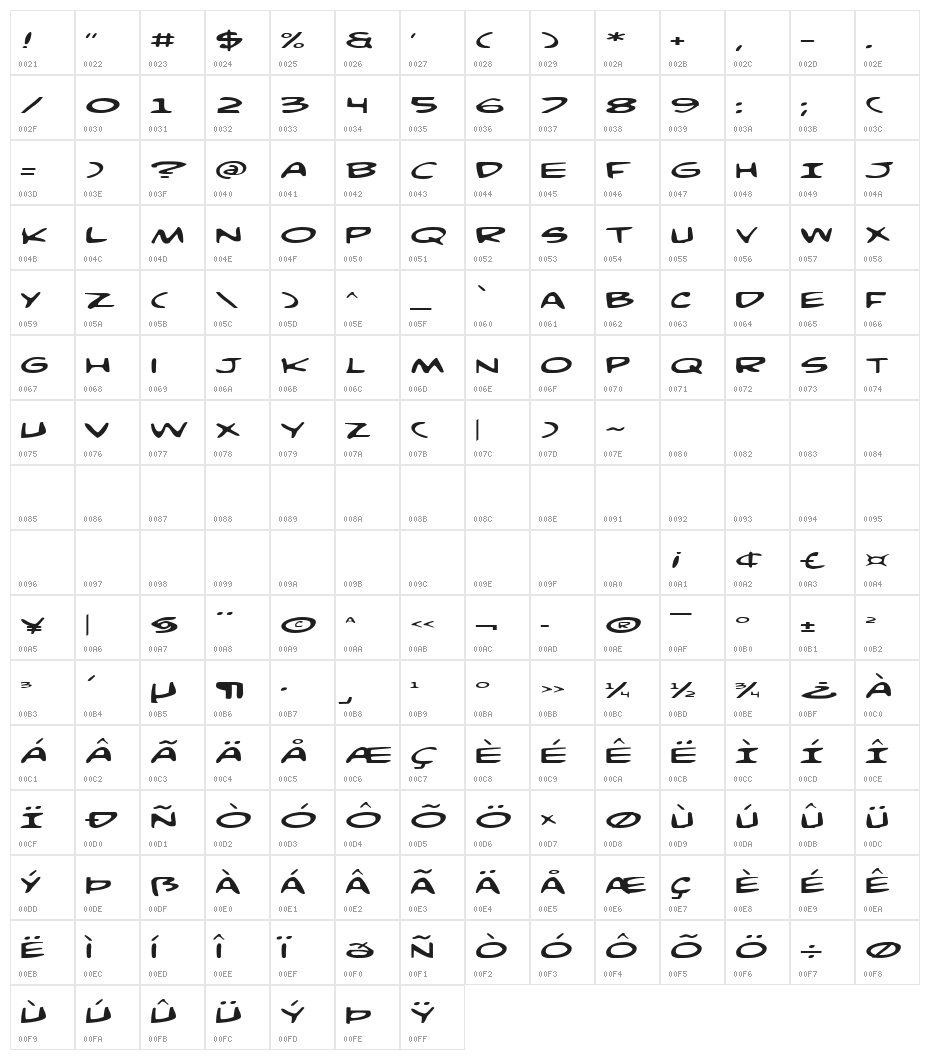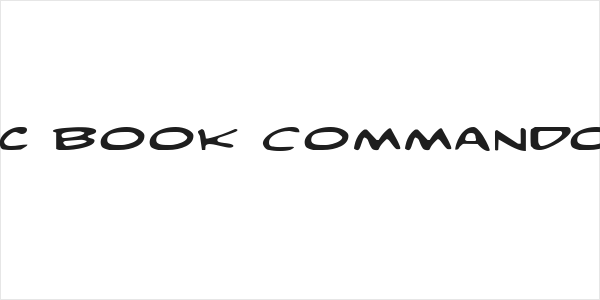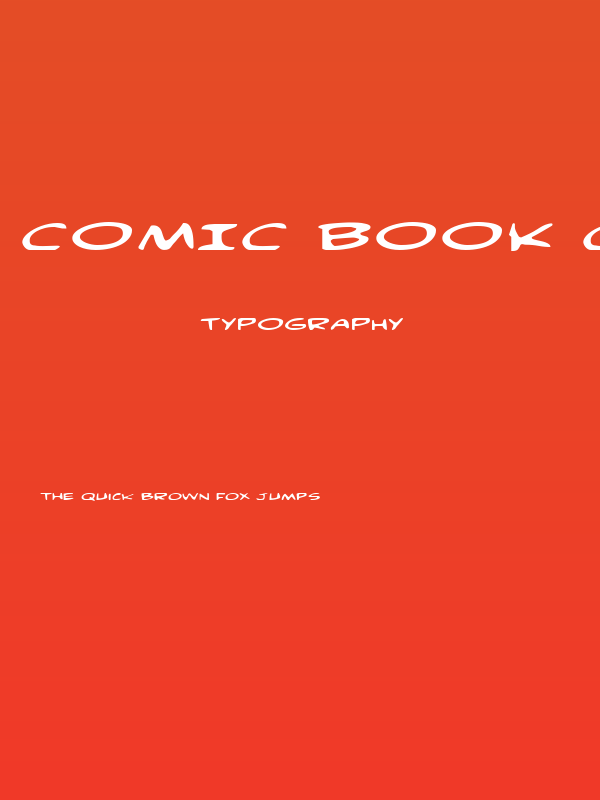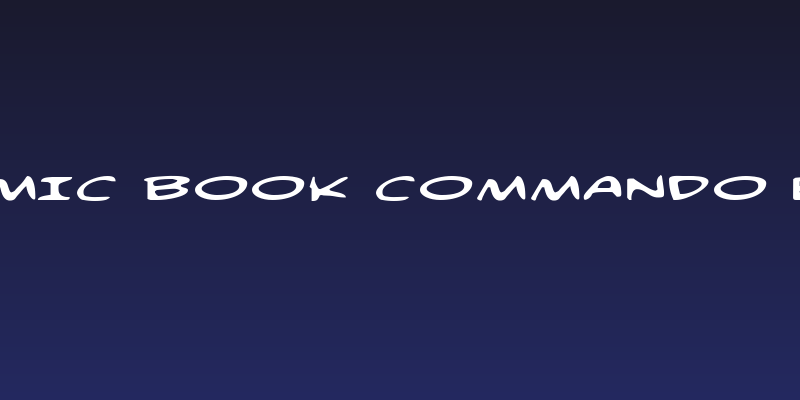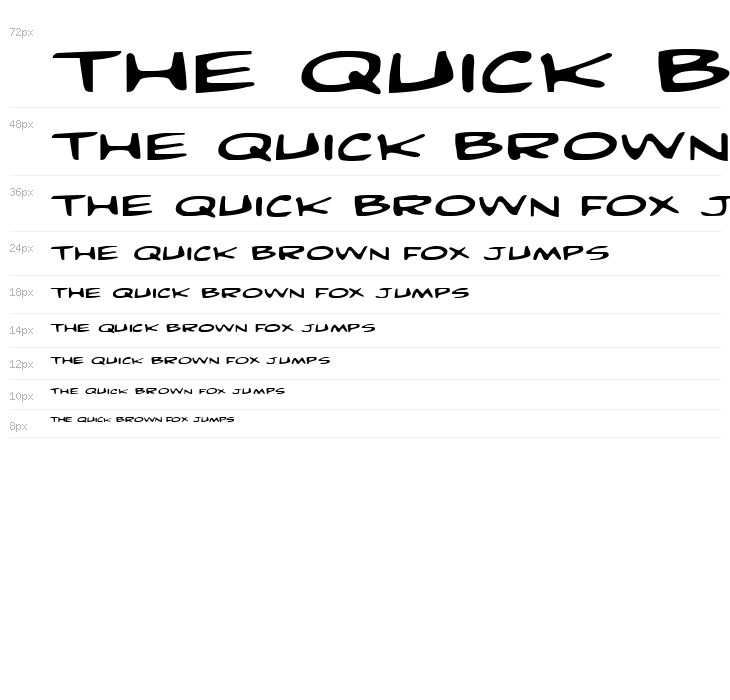
Comic Book Commando Exp Font
Comic Book Commando Exp Description
This font features a playful and bold style reminiscent of classic comic book lettering. The characters are slightly slanted and have a hand-drawn appearance, giving them a dynamic and energetic feel. The strokes are thick and consistent, providing a strong visual impact. The uppercase and lowercase letters maintain a uniform style, while the numerals and special characters complement the overall design. This font is ideal for projects that require a fun and engaging aesthetic.
| Overall Style | Playful, Comic |
| Proposed Projects | Ideal for comic books, children's books, posters, and playful branding. |